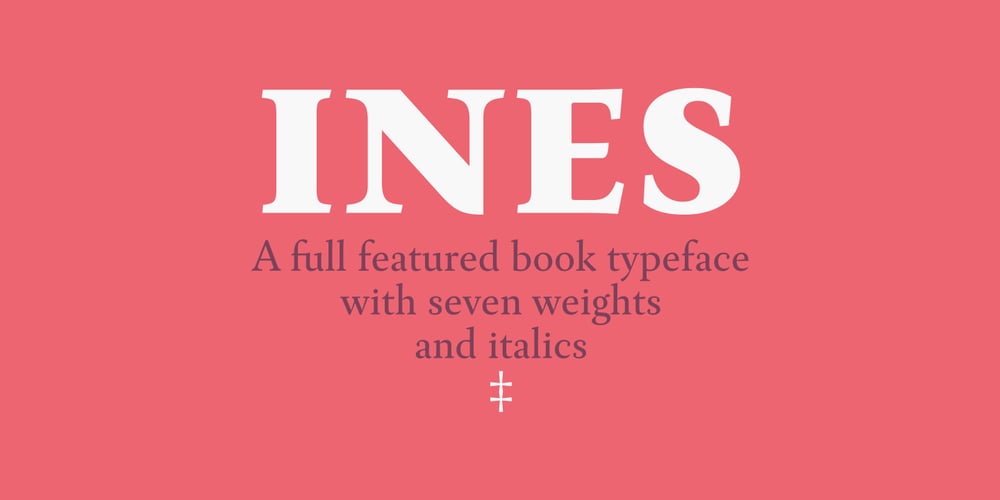
Ines Font Family was designed by Dino dos Santos and published by Monotype. Ines contains 14 styles and family package options. Ines is a full featured typeface with seven weights and italics, including Small Capitals, smart fractions and several ligatures. Ines was specially designed for books, with a slight short x-height, making the ascenders and descenders more elegant and tall.